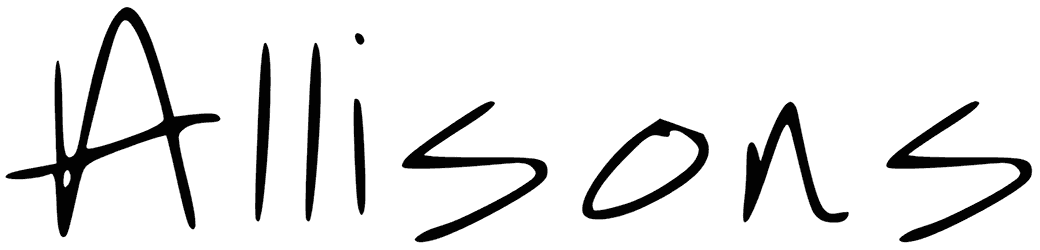
Allisons Font
Have you ever noticed that one of the most attractive designs is that which is drawn with a casual and daily face? Allisons as a handwritten font is one of them with narrow letters.
Despite the fact that this script font doesn’t have numerals and most of the punctuation marks, it can flawlessly appear in your design presentation. Give a chance to Allisons and watch how it will be ravishing in showing your texts of posters, books, planners, and others.
Just a font of my handwriting